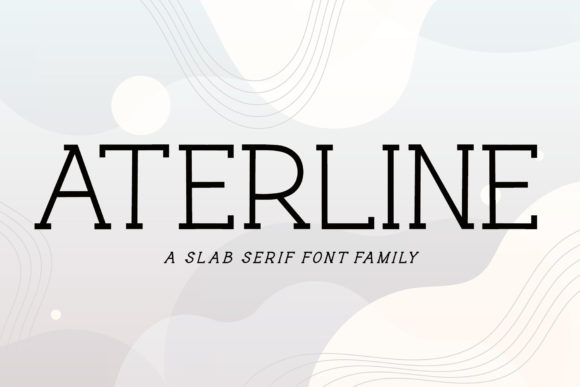
Journey into the realm of elegance and timeless charm with Aterline, the exquisite slab serif font that transforms your creative aspirations into tangible masterpieces. This font family, meticulously crafted by the visionary minds at AEN Creative Studio, is a testament to the power of simplicity and sophistication.
Aterline, inspired by the timeless allure of the classic serif, exudes an aura of sophistication that elevates any project it graces. Whether you're a seasoned designer or just starting your creative journey, Aterline effortlessly enhances your vision, turning ordinary designs into extraordinary expressions of art.
With its bold strokes and delicate serifs, Aterline commands attention without overpowering the essence of your message. Its inherent versatility allows it to seamlessly adapt to a myriad of creative endeavors, from heartwarming Christmas ornaments to captivating branding, alluring labels, and countless other projects waiting to be adorned with its timeless beauty.
Imagine transforming your Christmas ornaments into heirloom treasures, each one adorned with the enchanting curves and sharp angles of Aterline. Your handmade cards will take on a life of their own, conveying sentiments with an elegance that captivates hearts. Craft stunning labels that elevate your products, imbuing them with an air of exclusivity. With Aterline, your creations transcend the ordinary, becoming a testament to your discerning taste and unwavering commitment to excellence.
Embrace Aterline's ability to effortlessly enhance your design projects, allowing your creativity to soar to new heights. Experience the joy of watching your vision unfold, as Aterline weaves its magic, transforming your ideas into stunning realities. Let your designs speak volumes, leaving an unforgettable impression on all who encounter them.
Aterline awaits you, ready to ignite your imagination and unleash your creative potential. Embark on a journey of artistic exploration, where beauty and sophistication converge to create masterpieces that will endure the test of time.